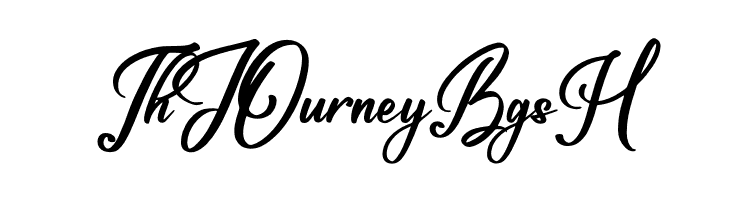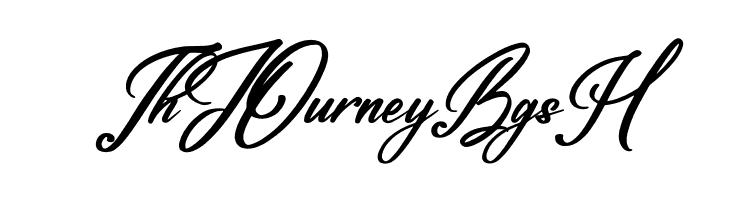
Rottasicity Font
A sophisticated script font with flowing, connected strokes and ornate details.
Rottasicity Italic Font
An elegant, italic script font with a calligraphic style.